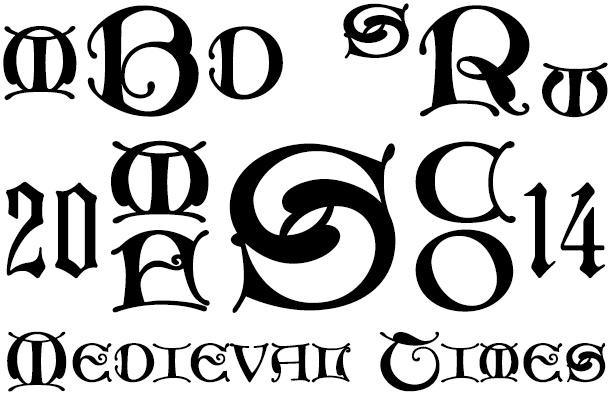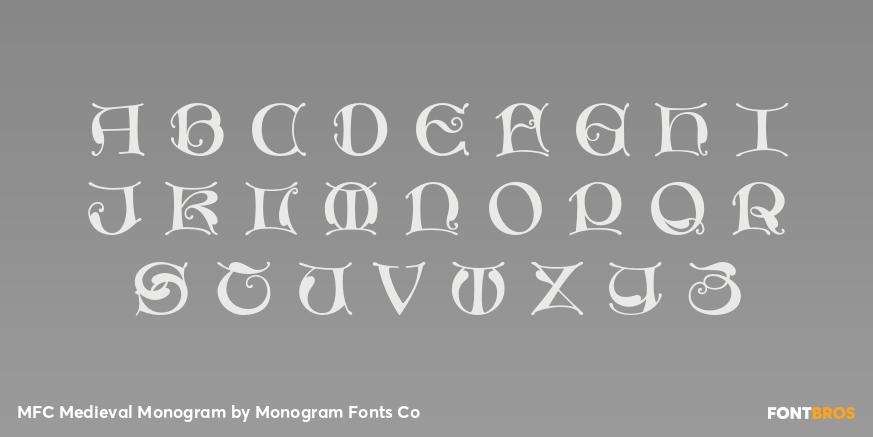
MFC Medieval Monogram
Font Family by Monogram Fonts Co
The source of inspiration for MFC Medieval Monogram is the 1934 "Book of American Types" by American Type Founders. Found in that specimen book was a set of Lombardic initials known as ?Missal Initials? that was available in limited size metal castings. This wonderful typeface is now digitally recreated, revived, and updated with highly customizable monogramming in mind.